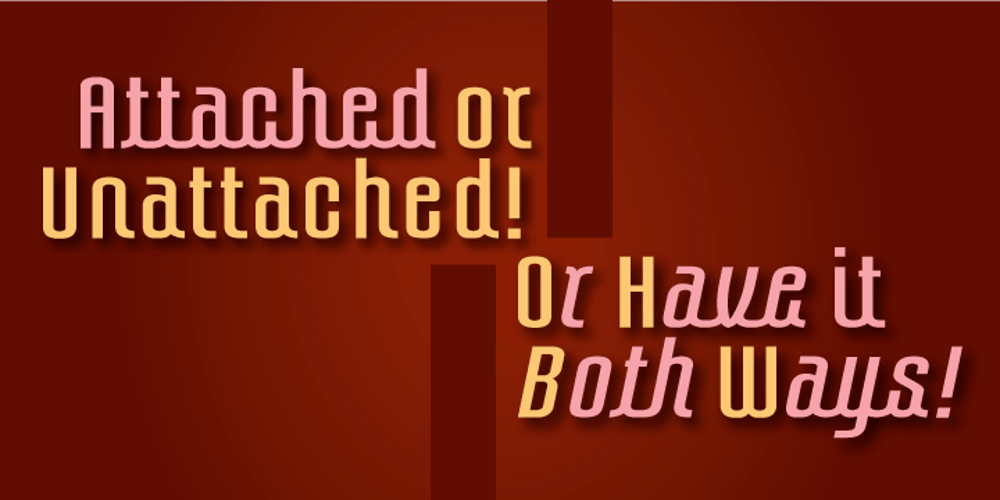
Tubo Font Family was designed by published by Jonahfonts. Tubo contains 4 styles and family package options. 2 font faces that combine together with attached lower case glyphs. A combo type-face that can be used with or without joining its lower case.